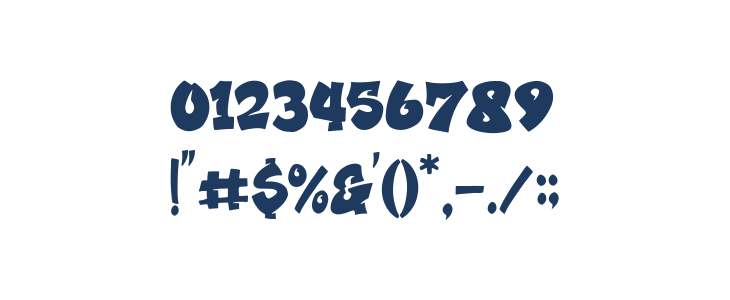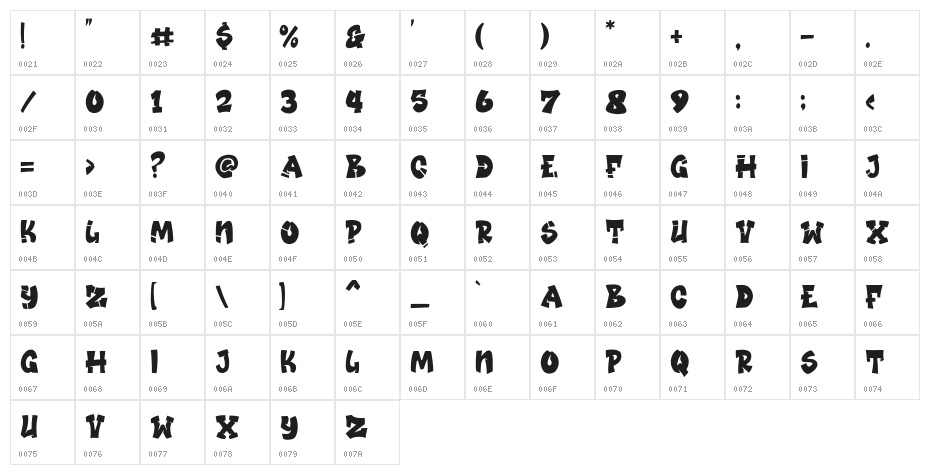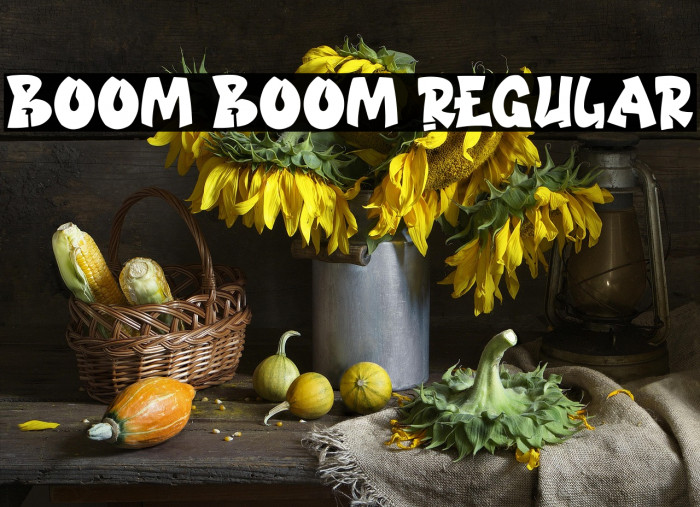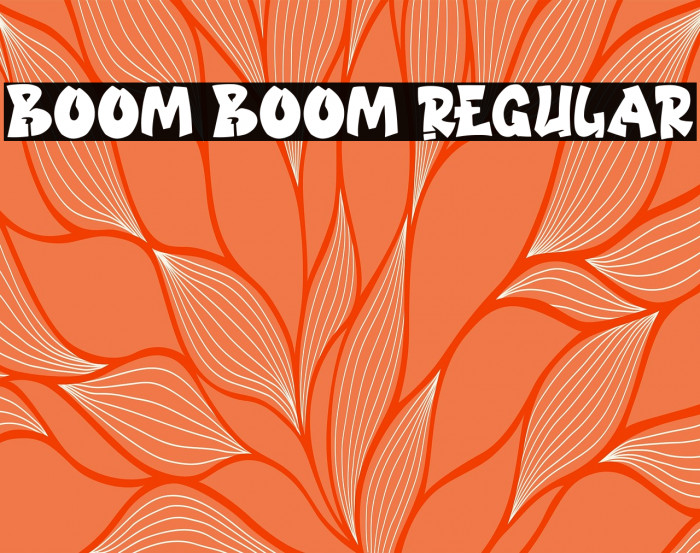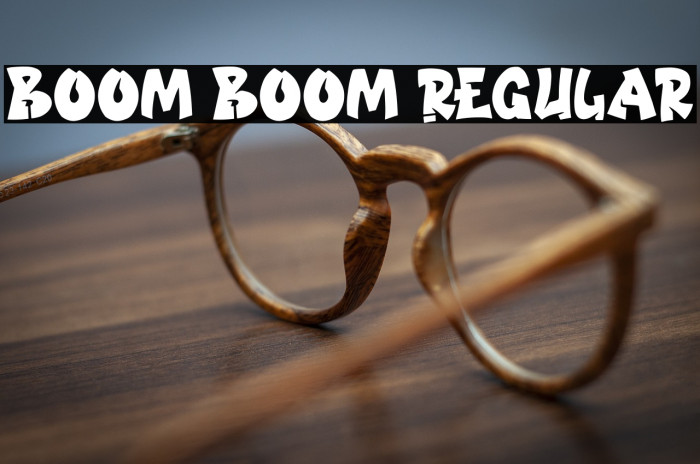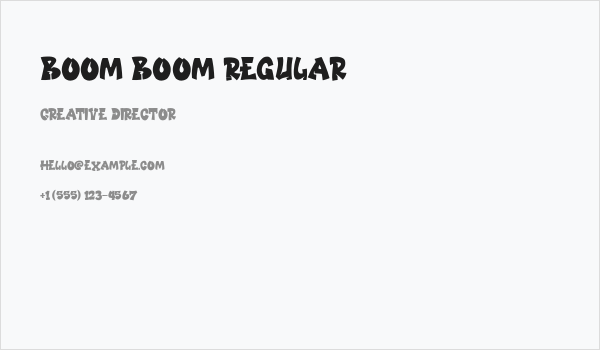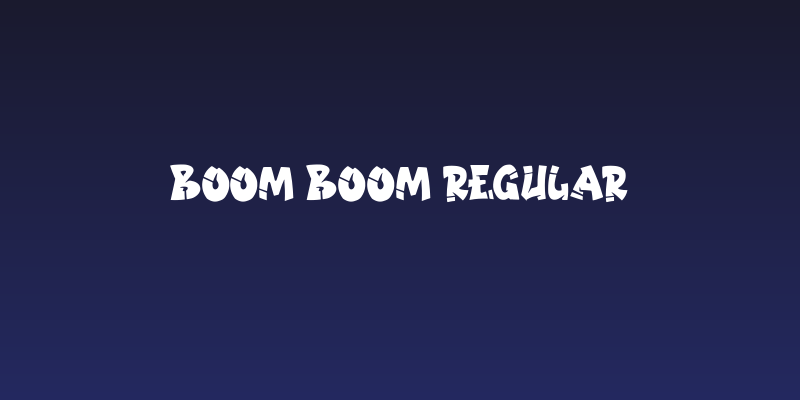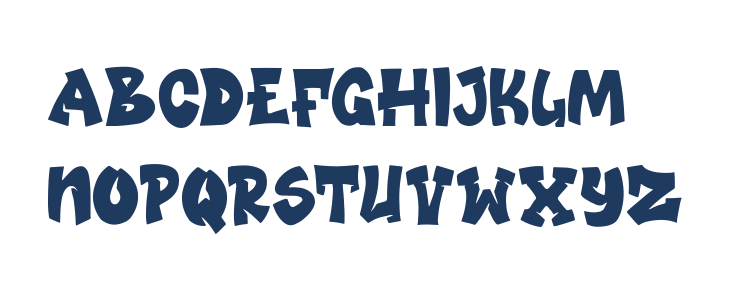
Boom Boom Regular Font
Boom Boom Regular Description
This font features a bold and energetic style, characterized by its thick, irregular strokes and dynamic shapes. The letters have a playful, almost cartoonish appearance, with exaggerated curves and angles that give it a lively and eye-catching look. The uppercase and lowercase letters maintain a consistent style, ensuring readability while adding a unique flair. The numbers and special characters follow the same bold and quirky design, making them stand out. This font is perfect for projects that require a fun and engaging visual impact.
| Overall Style | Playful, Energetic |
| Use Case | Headlines, Posters, Branding |
| Proposed Projects | Ideal for children's books, comic strips, posters, and playful branding. |